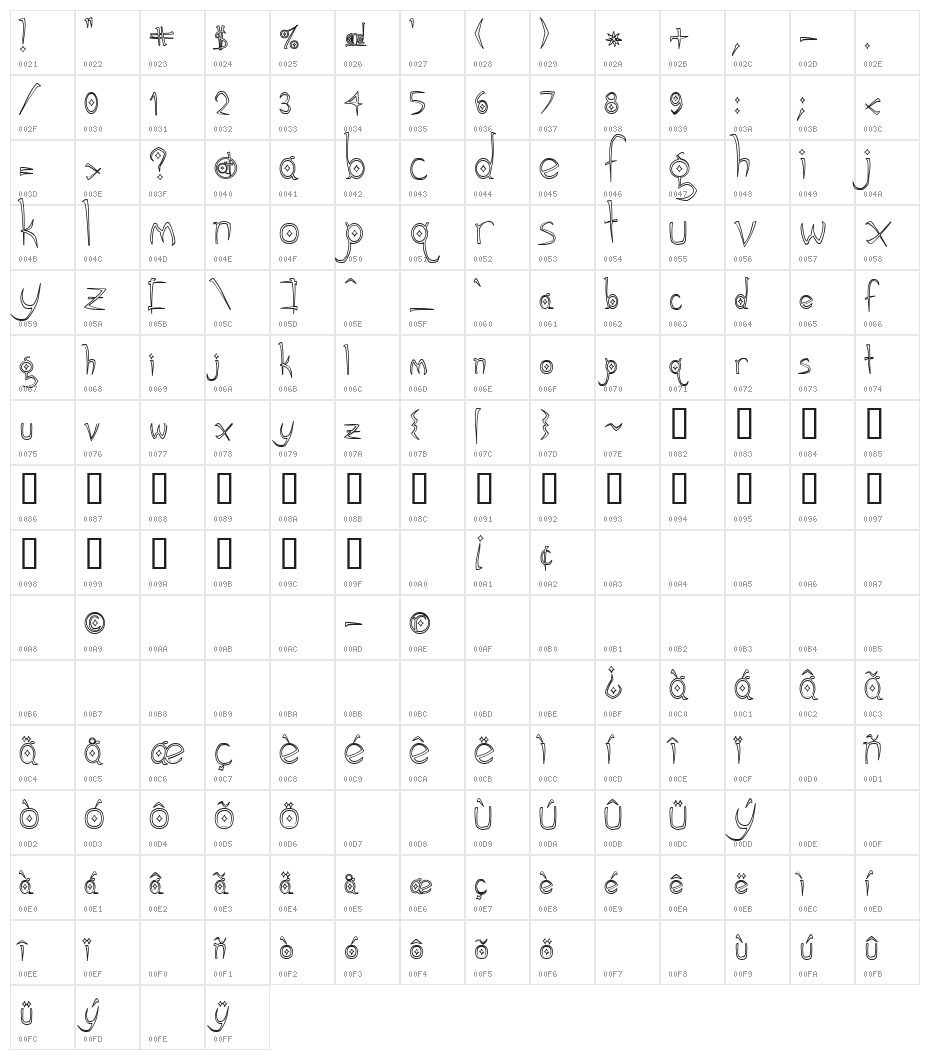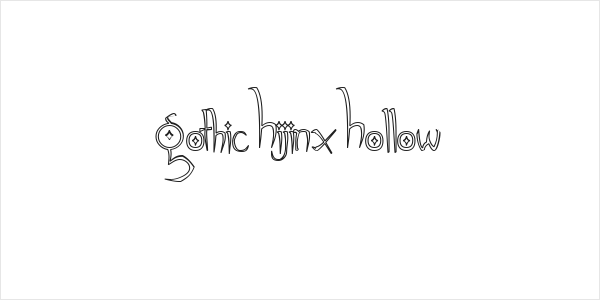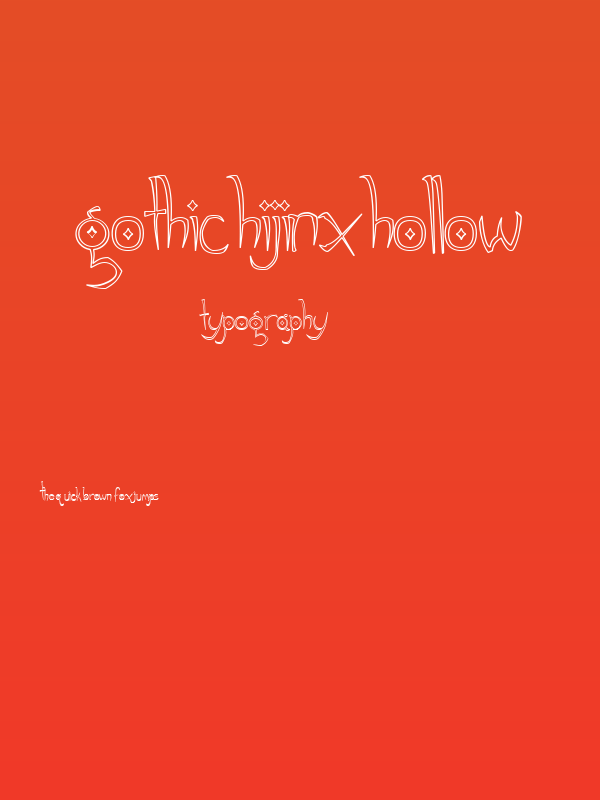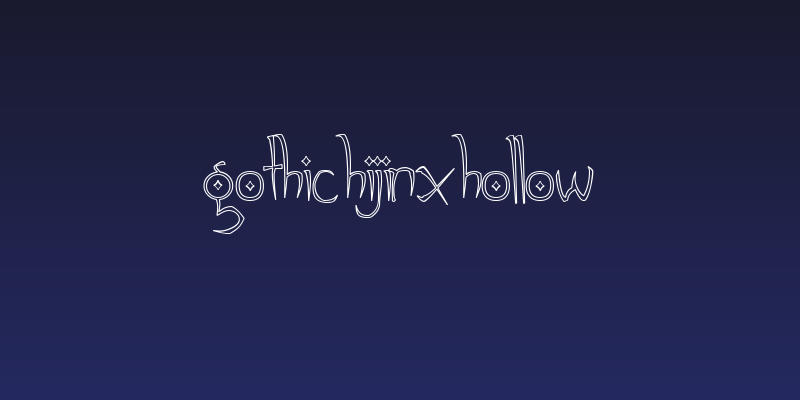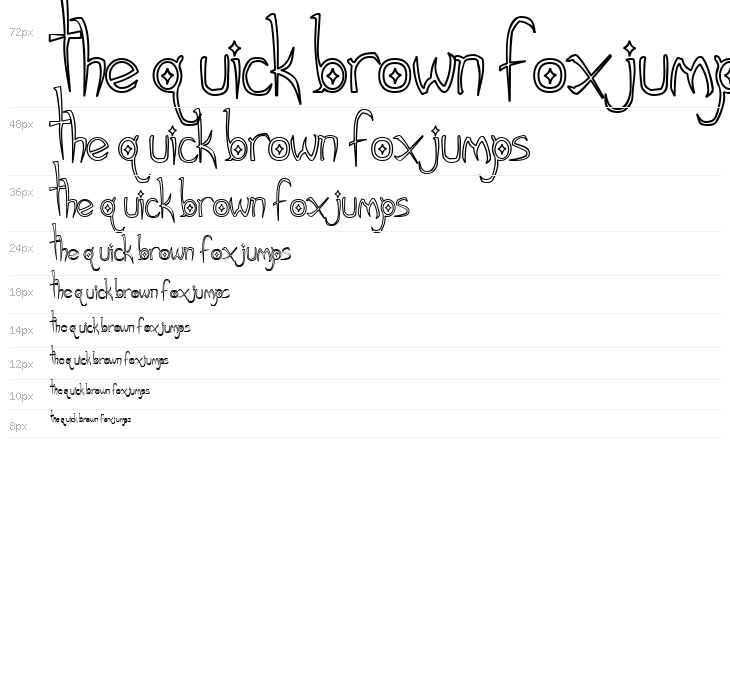
Gothic Hijinx Hollow Font
Gothic Hijinx Hollow Description
This font features a unique and playful design with hollow, decorative elements that give it a whimsical and gothic feel. The characters are outlined with intricate details, including diamond shapes within the letters, creating a sense of depth and artistry. The uppercase and lowercase letters maintain a consistent style, with elongated and curved lines that add to its distinctive appearance. Numbers and special characters are equally stylized, making this font suitable for creative and eye-catching designs. Its hollow nature allows for interesting color and background interplay, enhancing its visual appeal.
| Proposed Projects | Ideal for creative projects such as posters, album covers, Halloween-themed designs, or any project requiring a playful yet gothic touch. |